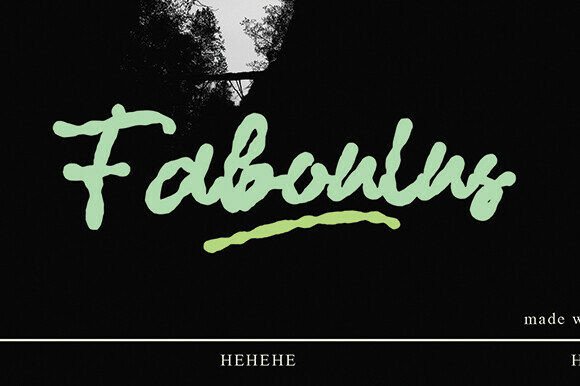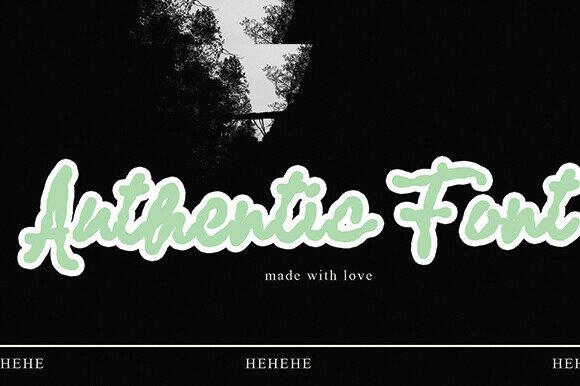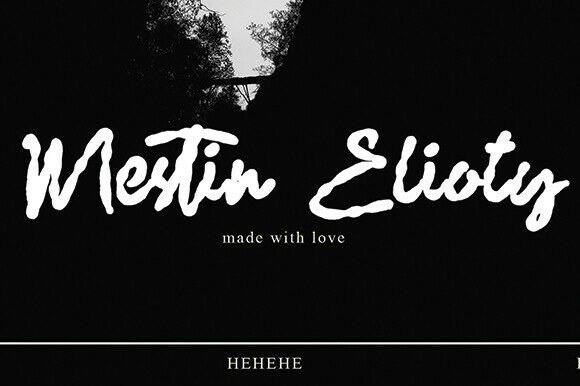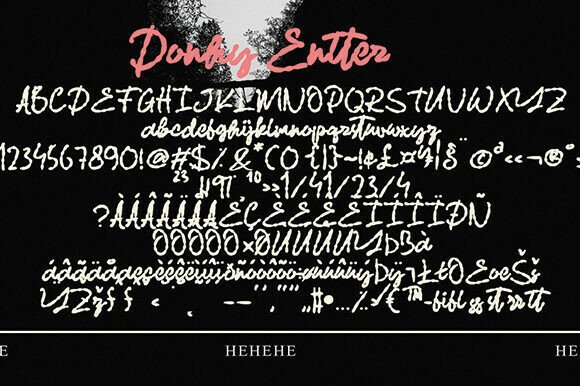
The Donhy Entter Font: A Handwritten Script with a Personal Touch
I still remember the design project that led me to discover the Donhy Entter font. I was working on a branding project for a local artisan bakery, and I needed a font that could capture the warmth and personality of their handmade products. After hours of searching, I stumbled upon Donhy Entter, and it was love at first sight. The bold, energetic strokes and natural, slightly jagged edges instantly conveyed the sense of spontaneity and personal touch that I was looking for.
So, what makes Donhy Entter so special? Here are a few things that I love about this font:
- ✨ Unique and eye-catching: Donhy Entter is a true showstopper. Its bold, brush-stroke style letterforms are sure to grab attention and make your designs stand out.
- ✅ Perfect for casual branding: Whether you’re working on a lifestyle brand, organic product packaging, or social media content, Donhy Entter’s raw, “made with love” aesthetic is sure to resonate with your audience.
- ✅ Easy to read: Despite its bold and expressive style, Donhy Entter is surprisingly easy to read, even in smaller sizes.
Of course, no font is perfect, and Donhy Entter has a few small quirks to keep in mind:
- 🤔 Limited use in formal contexts: Donhy Entter is a highly informal font, and as such, it’s not the best choice for formal or professional contexts, such as business reports or academic papers.
- ⚠️ Some letterforms may be tricky to use in all-caps: While Donhy Entter looks great in all-caps, some letterforms (like the “W” and “M”) can be a bit tricky to use effectively.
A Practical Guide to Using Donhy Entter
Now that we’ve covered the basics, let’s dive into some practical tips for using Donhy Entter in your designs.
One of the best things about Donhy Entter is its OpenType features. In Canva, you can access these features by clicking on the “More” menu and selecting “Font settings.” From there, you can adjust the font’s stylistic alternates, glyphs, and other settings to create a truly customized look.
Keep in mind that Microsoft Word may not support all of Donhy Entter’s OpenType features, but you can still achieve a beautiful, handwritten look with this font.
A Brief Backstory: The Inspiration Behind Donhy Entter
While the true story behind Donhy Entter’s creation is unknown, it’s easy to imagine that it was inspired by the world of handmade crafts and artisanal goods. Perhaps the font’s creator was a painter or a letterer who wanted to capture the raw, emotional quality of brush-stroke lettering. Whatever the inspiration, Donhy Entter is a true masterpiece that brings a sense of warmth and personality to any design.
- Q: Does Donhy Entter support OpenType features?
- A: Yes, Donhy Entter supports OpenType features, including stylistic alternates, glyphs, and other settings that can help you customize the font to your needs.